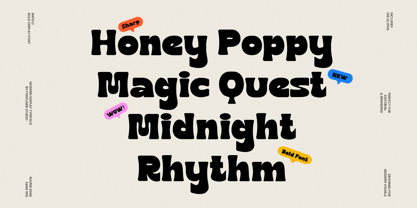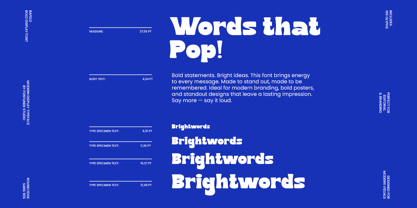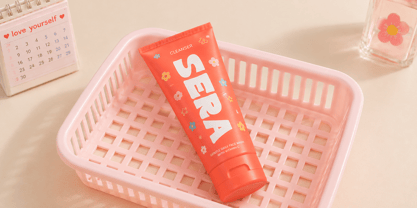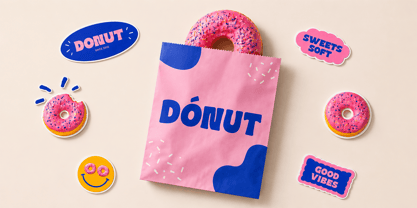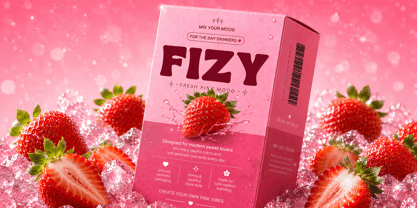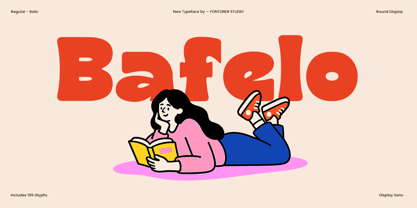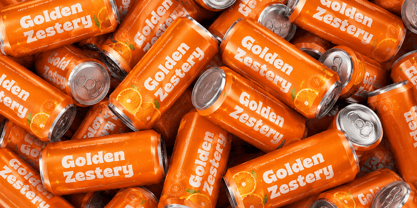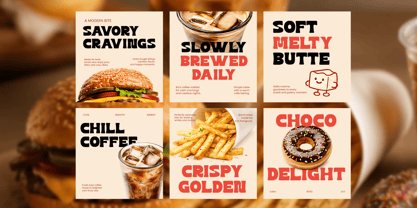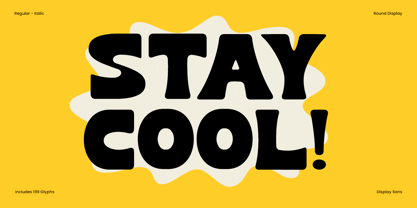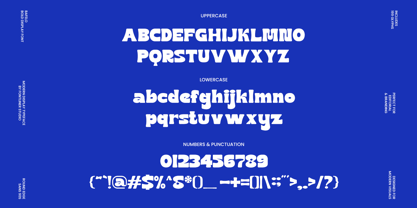
Bafelo
Die Schriftfamilie Bafelo wurde von Ghina Luthfiarieska entworfen und von Font Liner veröffentlicht. Bafelo enthält 2 Stile und Familienpaketoptionen. Mehr über diese Familie
Bafelo is a bold rounded display sans font designed to bring fun, warmth, and playful personality into your creative projects. With its chunky letterforms, soft curves, and cheerful visual energy, this typeface is perfect for eye-catching branding, children’s products, packaging, posters, social media graphics, and modern logo design. Its friendly character makes every headline feel approachable, energetic, and instantly memorable.
Featuring Regular and Italic styles with 199 glyphs, Bafelo offers versatility for designers who need expressive typography with strong readability. Whether you're building food branding, playful startup identities, toy packaging, educational materials, cartoon-inspired merchandise, or vibrant promotional campaigns, this font delivers a bold and charming visual presence.
Perfect for brands that want to feel modern, joyful, and full of character, Bafelo combines retro display aesthetics with contemporary rounded sans styling—making it ideal for creative projects that need a fun, standout typographic voice.